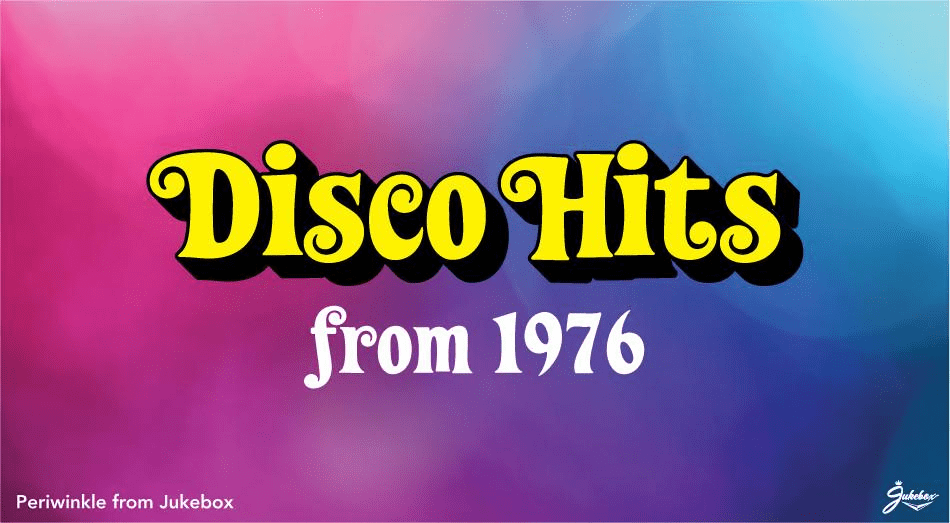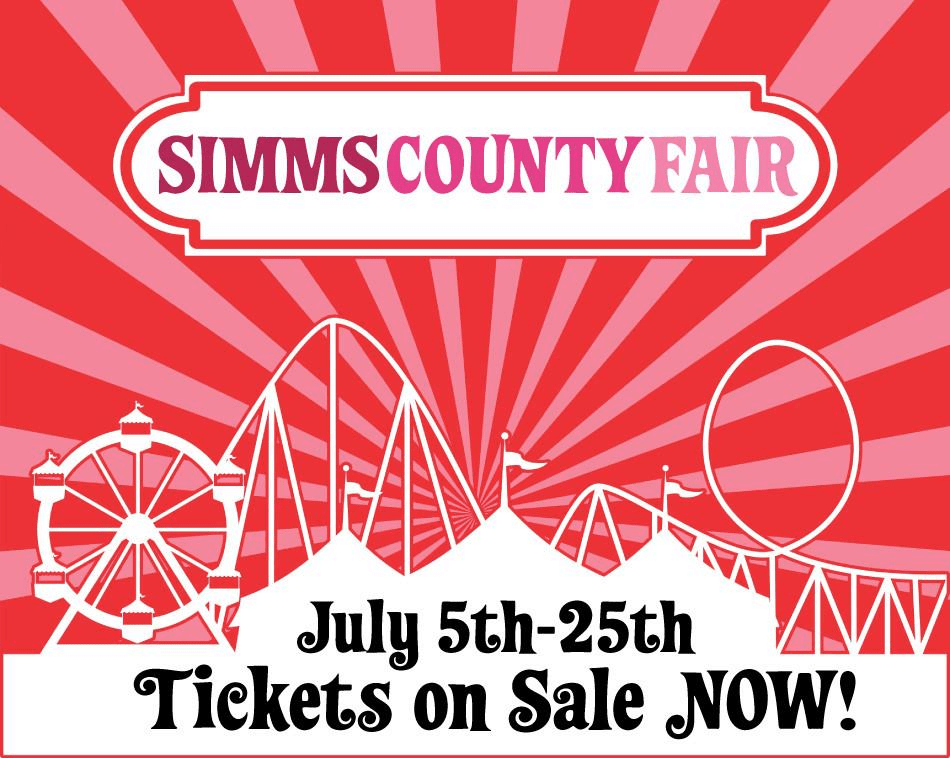
Periwinkle
Periwinkle is a fun and lively digital revival based on an old photo-typositing face. Filled with 1960s and 1970s charm, Periwinkle contains a full set of alternate swash caps as well as a few lowercase swashes and other alternate glyphs to add typographic variation. This font seems to take us back to our childhoods with its curly cues and slightly modulated baseline. Perfect for any project that needs fun, laughter and liveliness!